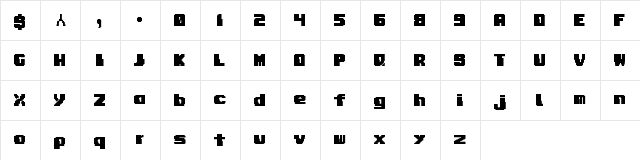
21XX OMF Regular
| Designer | unixman84 |
Design Context for 21XX OMF Typeface
21XX OMF takes a measured approach to typography — its balanced proportions and neutral character make it a reliable workhorse for both digital and print work.